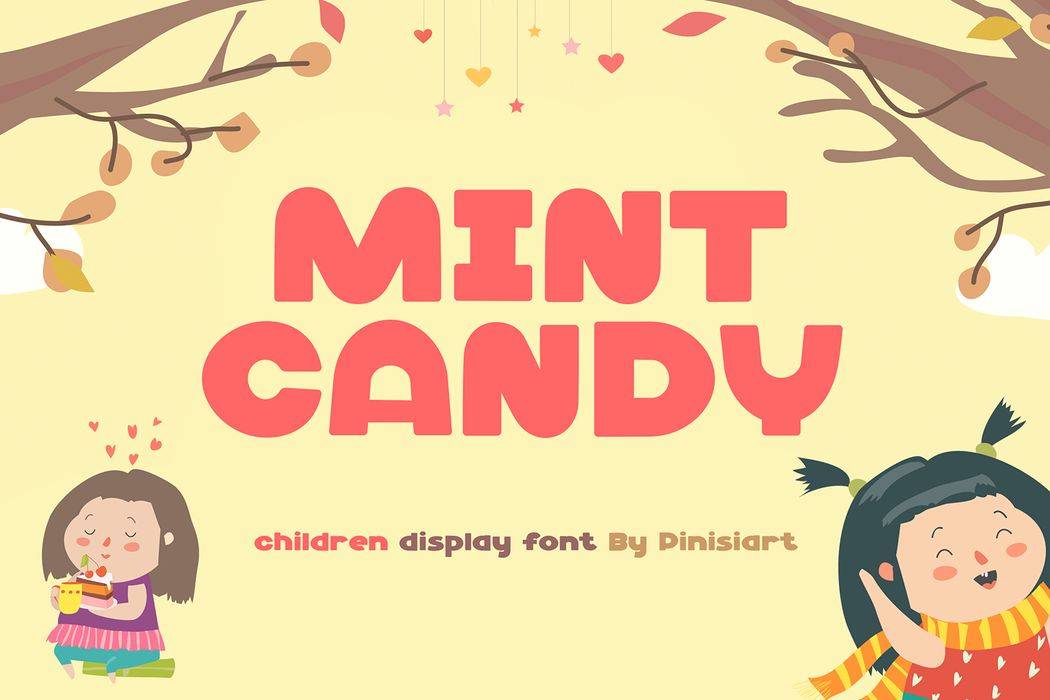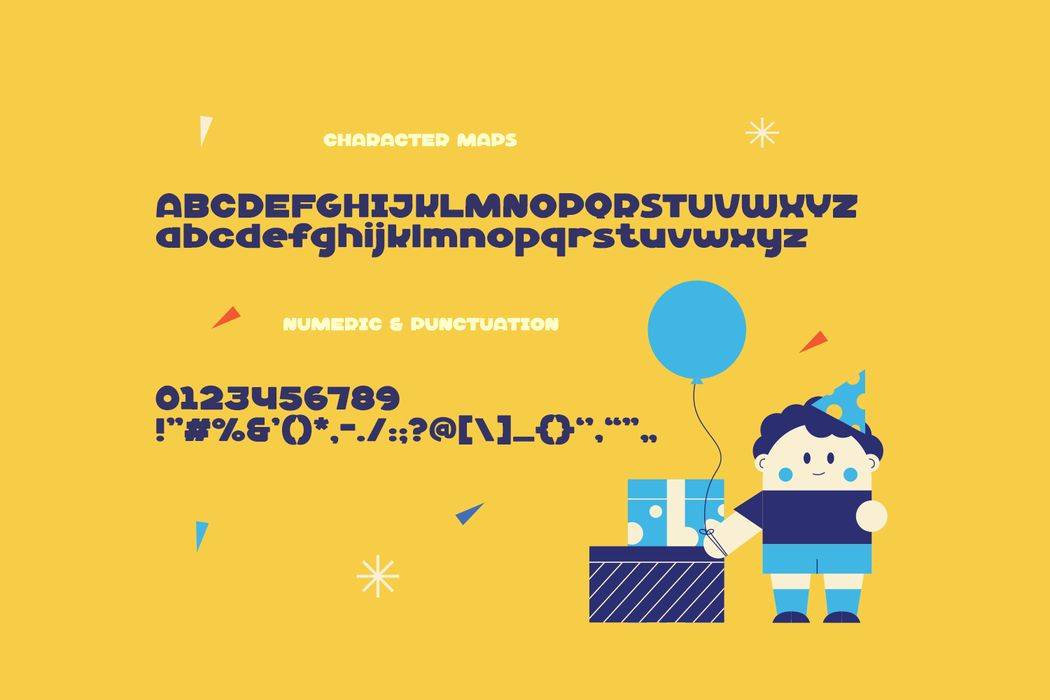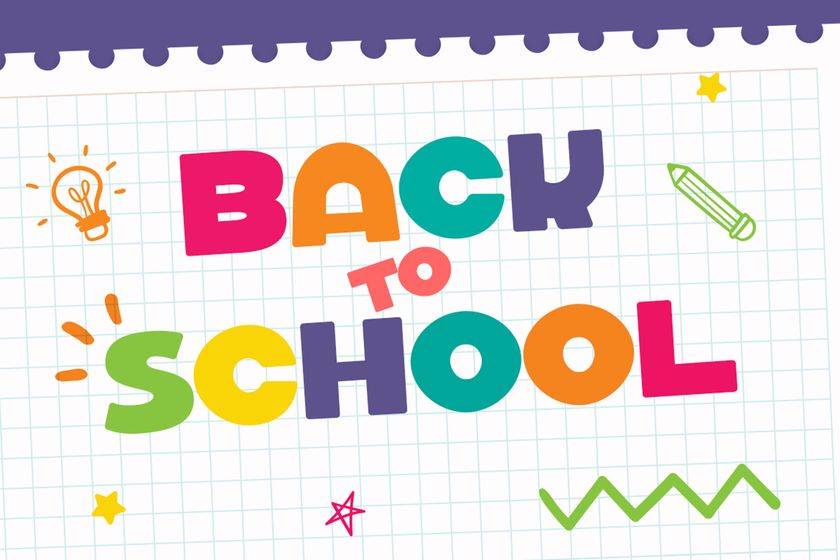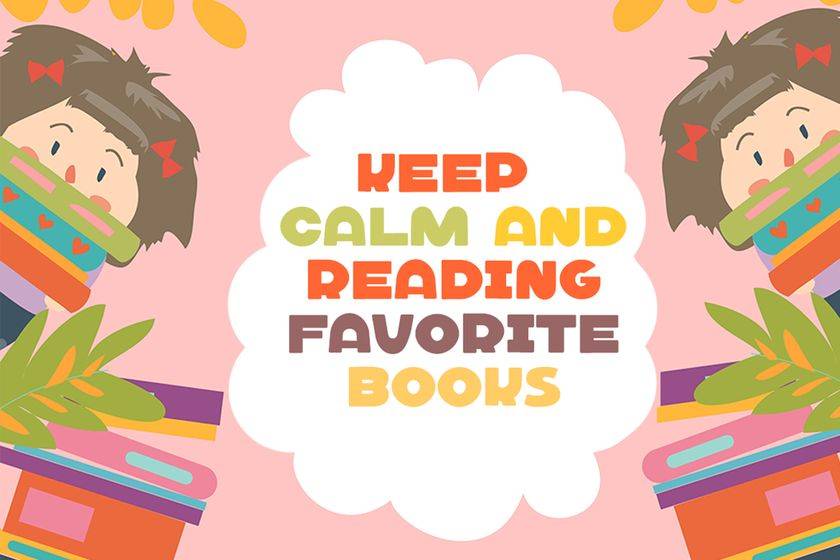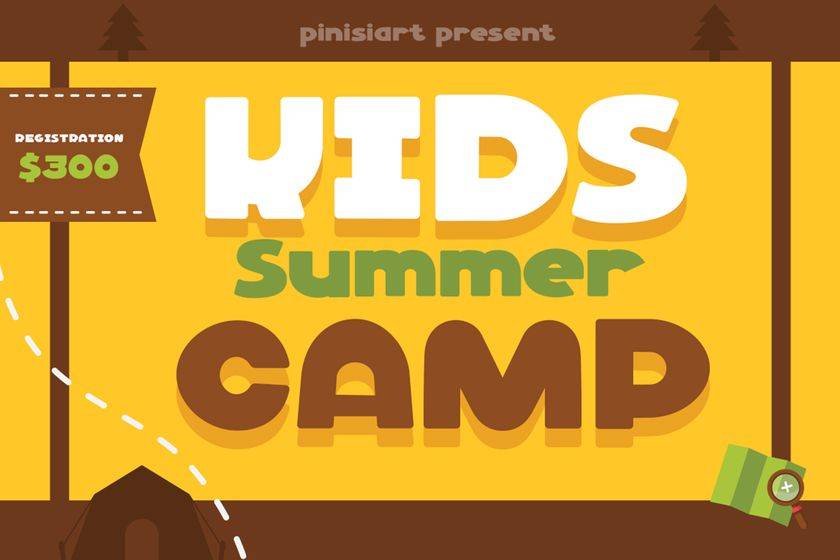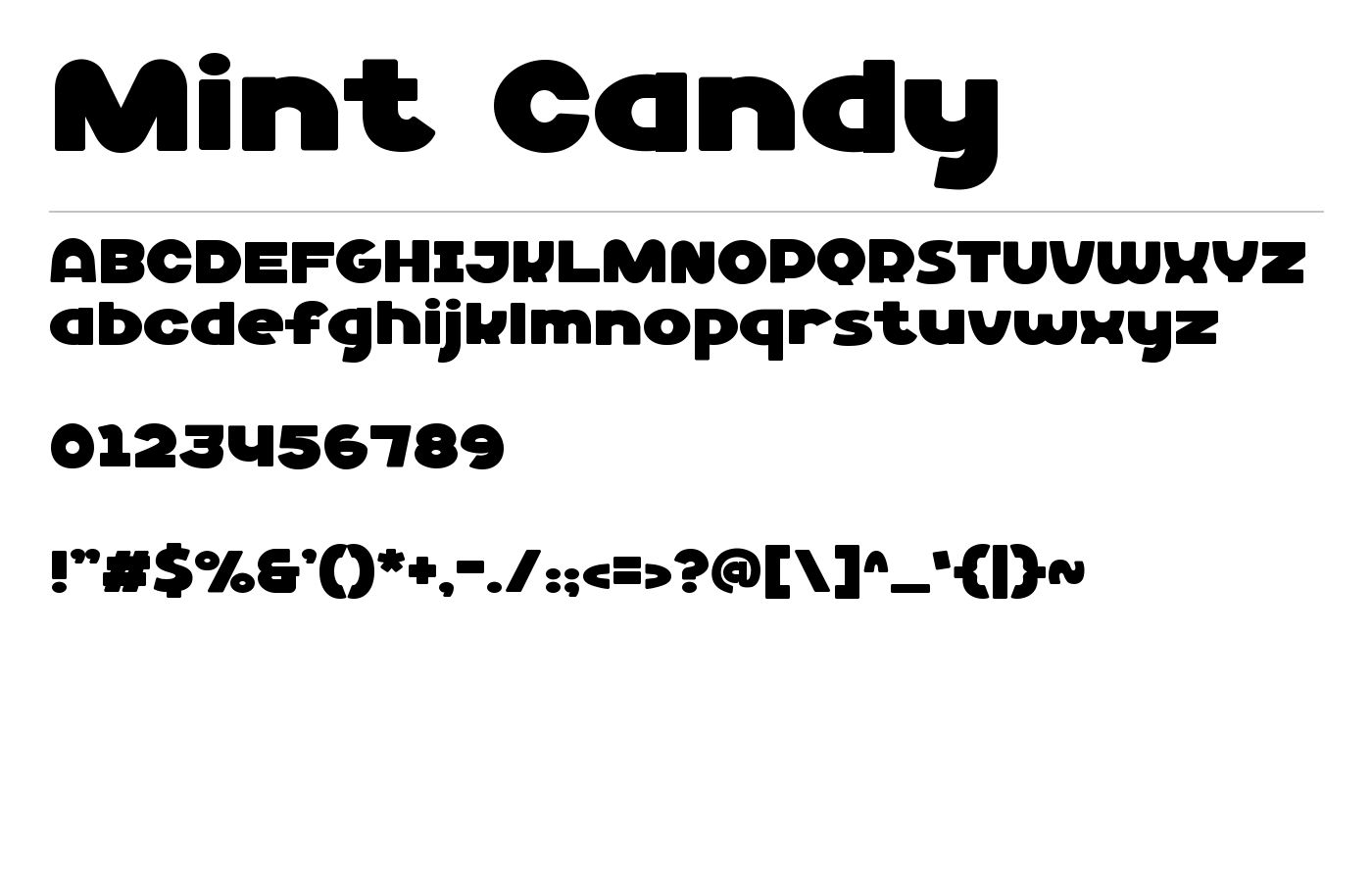
Mint Candy is a bold, rounded sans serif font with a playful and friendly vibe. Its thick, smooth strokes and soft curves give it a fun, approachable feel, making it perfect for informal branding, kids’ products, or eye-catching headlines. This font works well where a cheerful and modern look is needed to attract attention and convey warmth.
Mint Candy Font
About Mint Candy Font
| Font family | Mint Candy Font |
| Release date | 2022-09-19 |
| Designer | PINISIART Team |